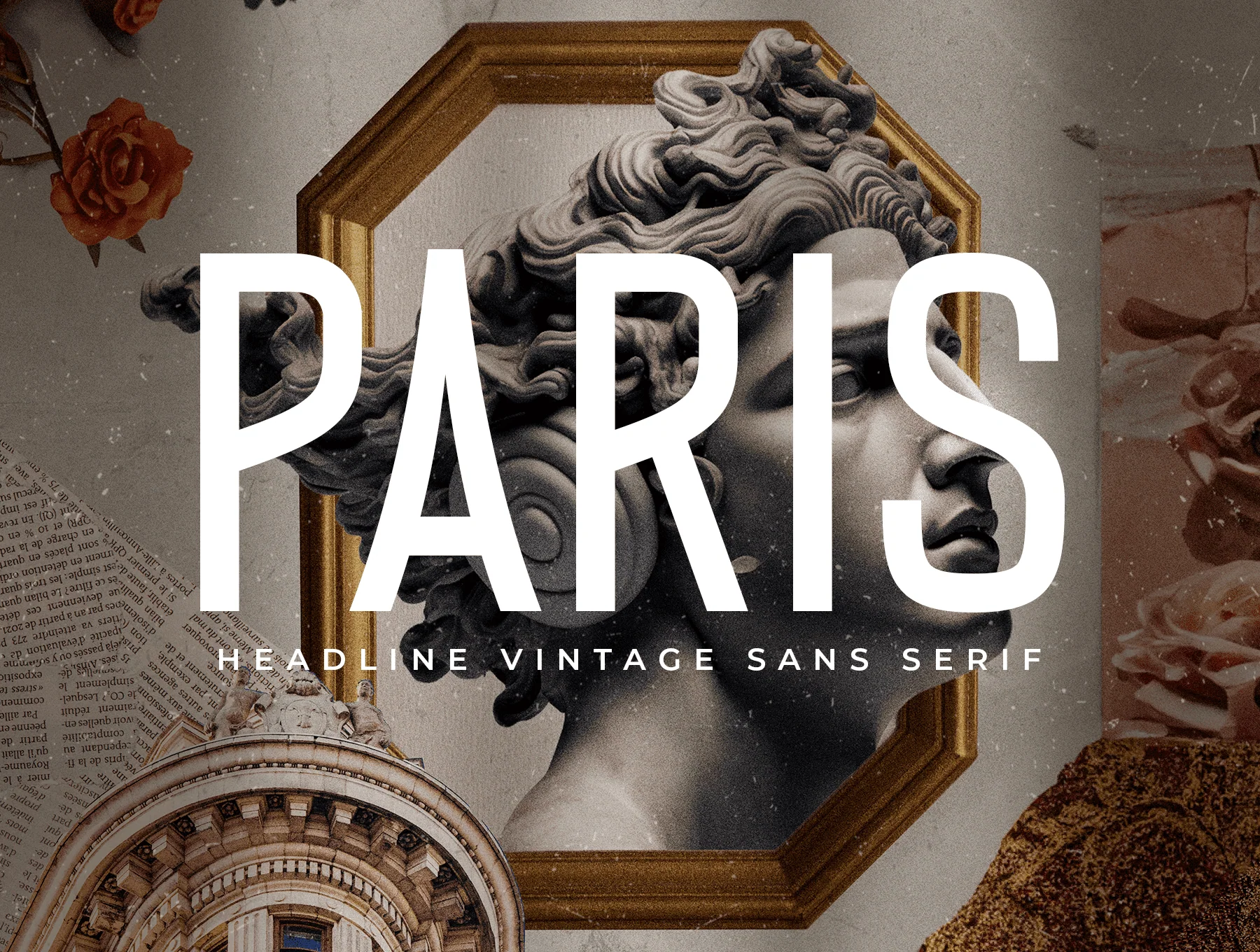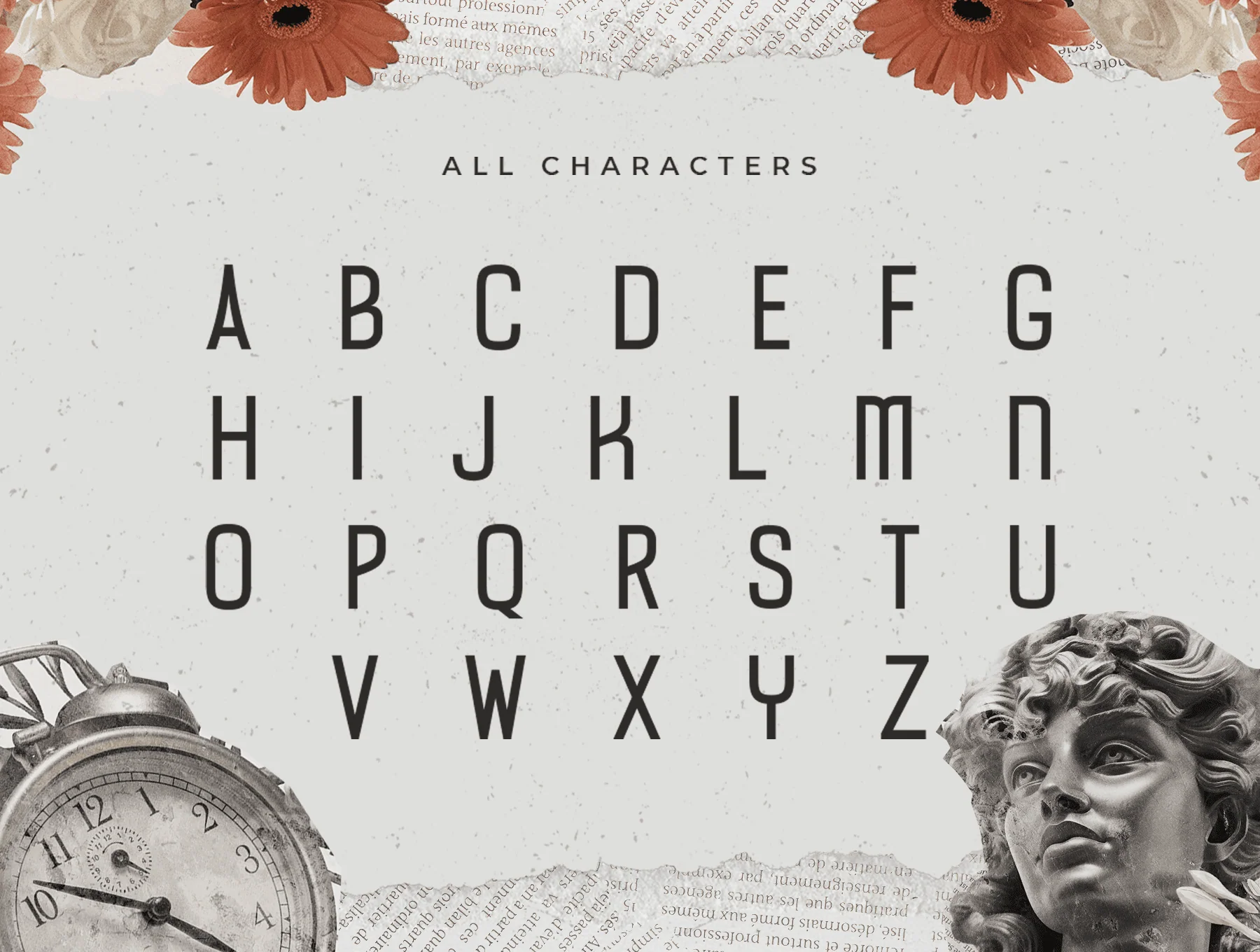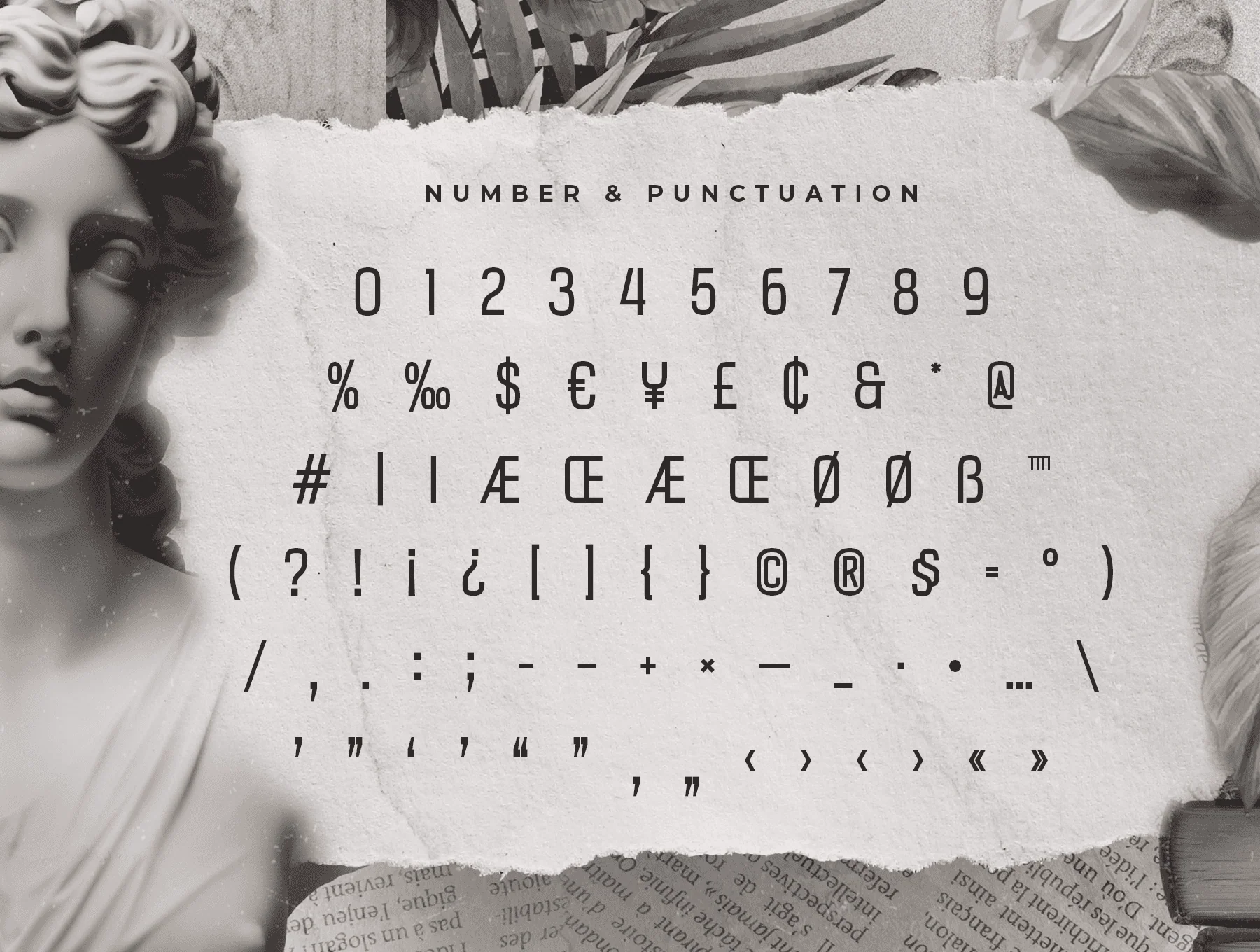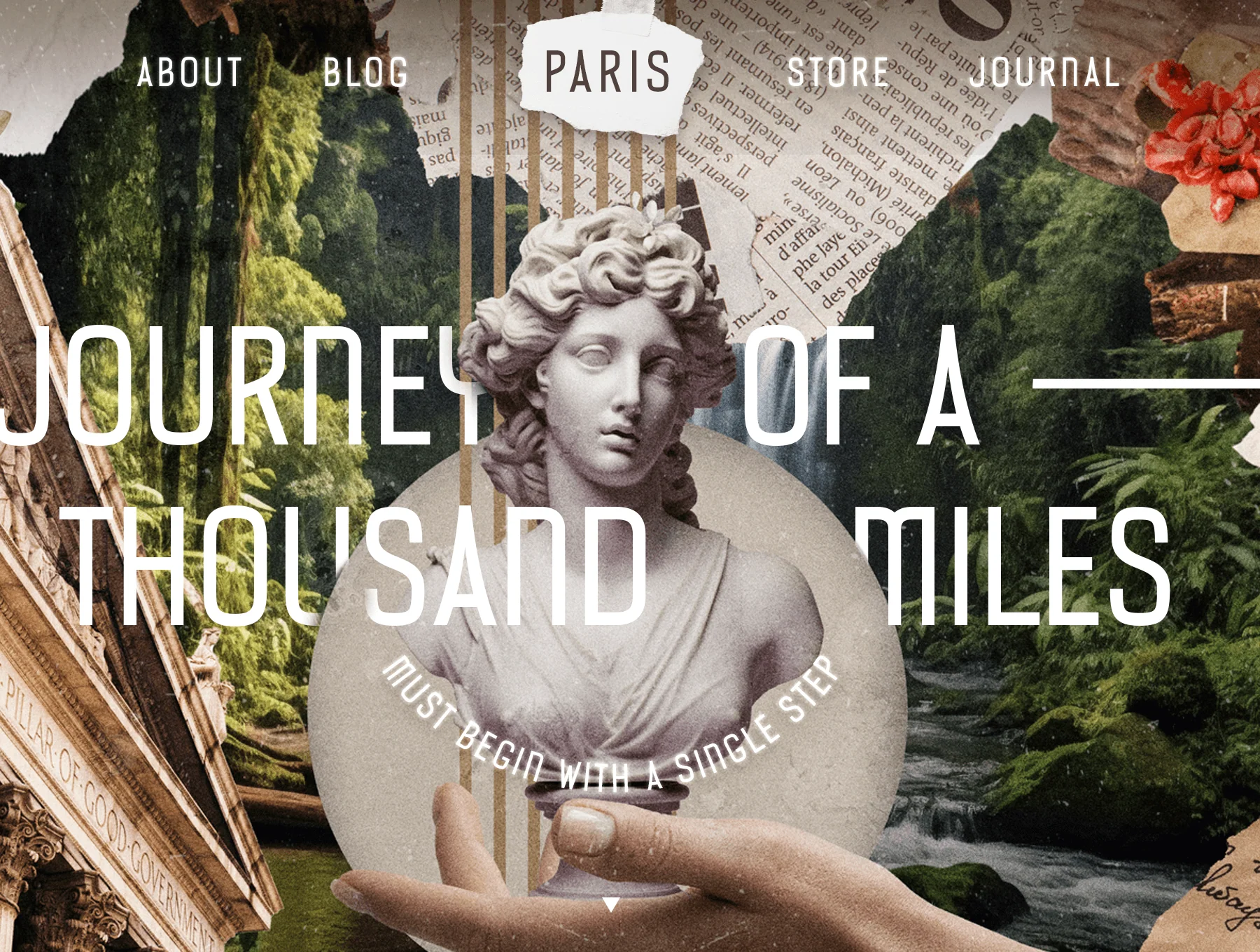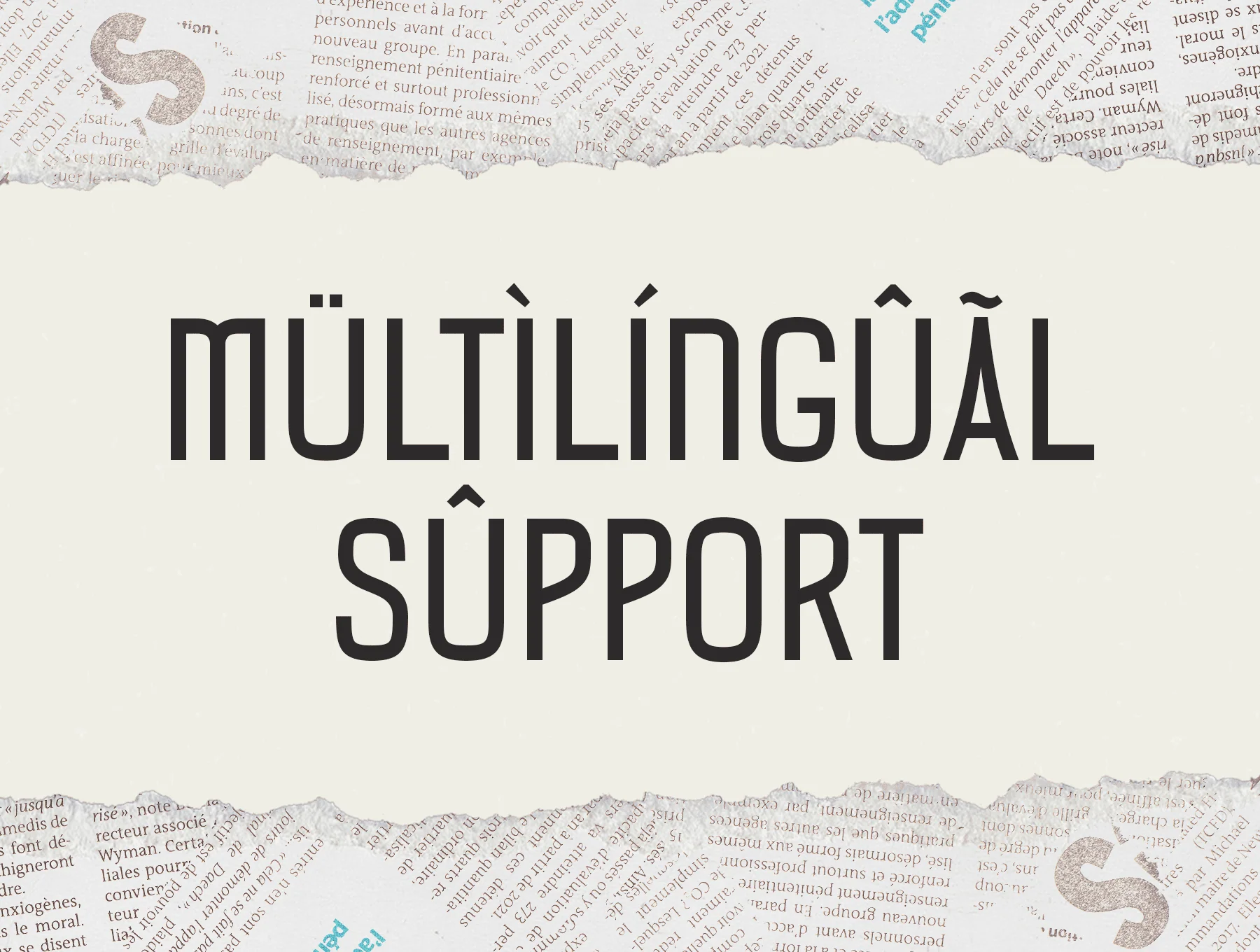
PARIS Font
PARIS – Retro sans serif display font
PARIS is a fresh vintage sans serif font made for headlines, featuring ready-to-use uppercase characters. Inspired by graphic design work for many brands, it blends retro character with a modern look. Ideal for compact layouts needing historical charm, classic vibes, and a distinctive style.